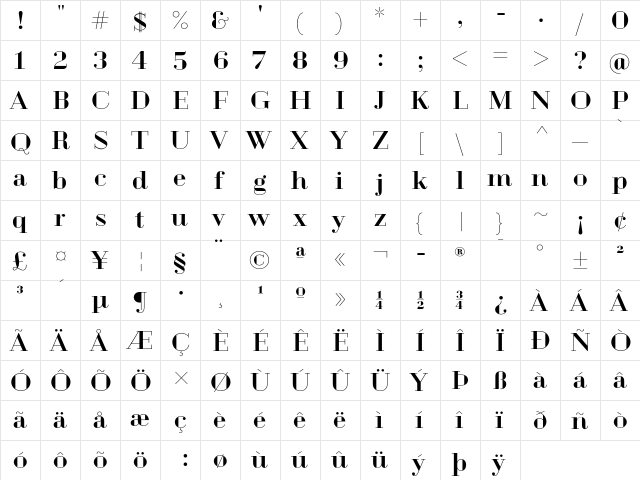
Geotica Three Regular
Design Context for Geotica Three Typeface
Geotica Three is a composed and adaptable typeface that performs quietly and consistently across a wide range of design contexts.